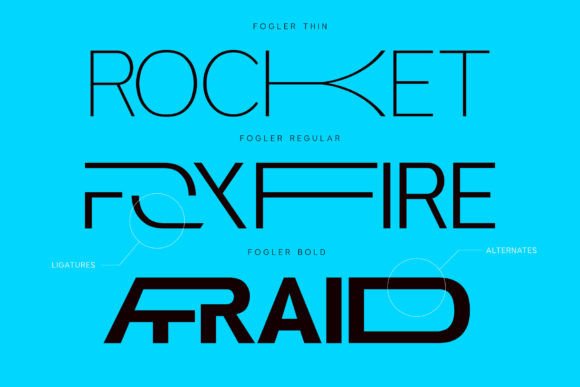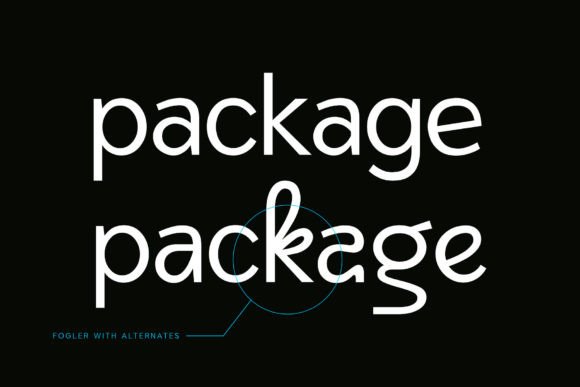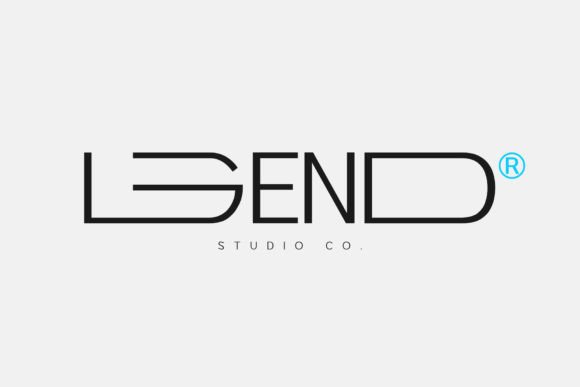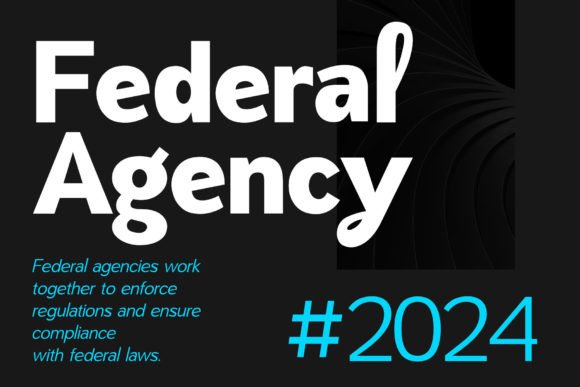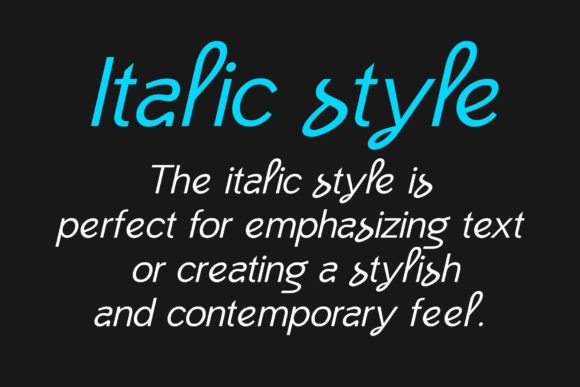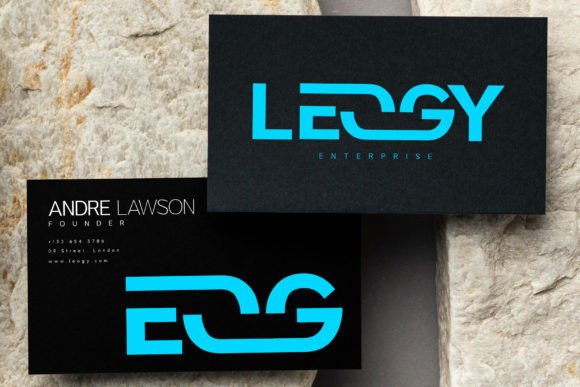
Fogler Font: The Ultimate Corporate Logo Sans Serif for Modern Designs
In the realm of typography, a font can make or break the visual identity of a brand. For designers and crafters seeking a modern, well-balanced, and minimalist sans serif font, Fogler Font is an exceptional choice. This corporate logo sans serif font boasts a unique and iconic design, making it perfect for a wide range of projects, from branding and logos to posters, social media posts, and more.
What Makes Fogler Font Stand Out?
Fogler Font is designed with the modern designer in mind. Its clean lines, balanced proportions, and minimalist aesthetic make it an excellent choice for those seeking a sophisticated and professional look. The font’s unique design elements, including ligatures and alternates, allow for easy combination and variation, enabling designers to create distinctive shapes in seconds.
Key Features of Fogler Font
- Modern and Minimalist Design: Fogler Font features a sleek, contemporary design that is both stylish and professional.
- Unique and Iconic: The font’s distinctive design elements make it perfect for creating memorable logos and brand identities.
- High Legibility: Fogler Font is designed for maximum readability, making it ideal for use in a variety of applications, from body text to headings.
- Ligatures and Alternates: The font includes a range of ligatures and alternates, allowing designers to create unique and varied typography.
- Easy Combination and Variation: Fogler Font’s design makes it simple to combine and vary typography, enabling designers to create distinctive shapes and styles.
Ideal for a Wide Range of Projects
Fogler Font is an incredibly versatile font, suitable for a wide range of projects, including:
- Branding Projects: Create a professional and memorable brand identity with Fogler Font.
- Logos: Design distinctive and iconic logos that stand out from the crowd.
- Posters: Use Fogler Font to create eye-catching posters that grab attention.
- Social Media Posts: Elevate your social media presence with Fogler Font’s modern and stylish typography.
- Advertisements: Create effective and engaging advertisements with Fogler Font’s high legibility and unique design.
- Product Packaging: Use Fogler Font to create eye-catching and professional product packaging.
- Designs and Labels: Add a touch of sophistication to your designs and labels with Fogler Font.
- Photography and Watermarks: Use Fogler Font to add a professional touch to your photography and watermarks.
- Invitations and Stationery: Create beautiful and elegant invitations and stationery with Fogler Font.
Why Choose Fogler Font?
In a crowded marketplace, it’s essential to stand out from the competition. Fogler Font offers a unique and distinctive design that can help elevate your brand or project. With its modern and minimalist aesthetic, high legibility, and versatility, Fogler Font is an excellent choice for designers and crafters seeking a professional and stylish sans serif font.
Fogler Font is an exceptional corporate logo sans serif font that offers a unique and iconic design, high legibility, and versatility. With its modern and minimalist aesthetic, Fogler Font is perfect for a wide range of projects, from branding and logos to posters, social media posts, and more. Whether you’re a designer or crafter, Fogler Font is an excellent choice for those seeking a professional and stylish font that can help elevate their project or brand.